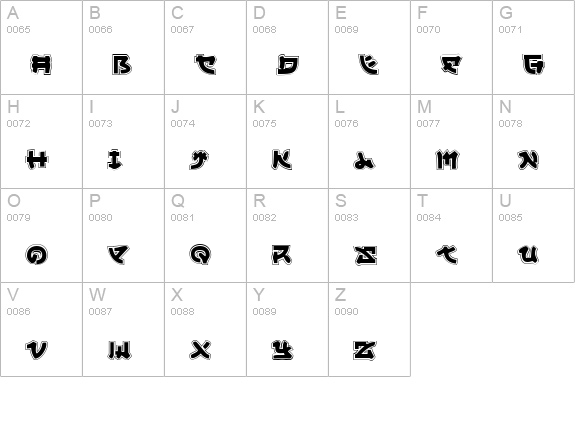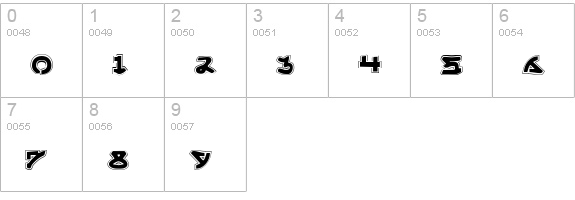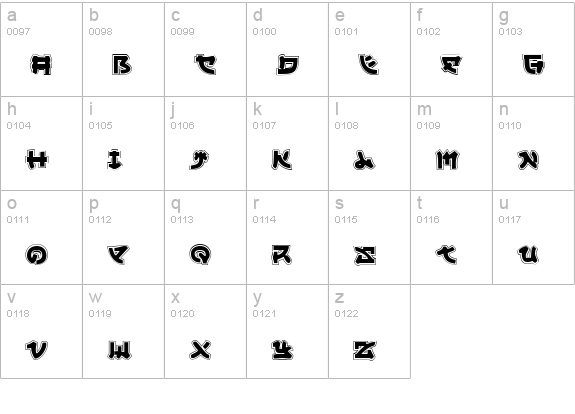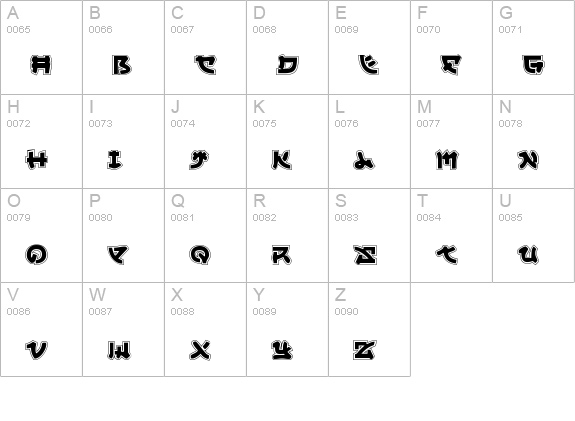
Yama Moto Academy Font Details
The Yama Moto Academy font exudes elegance and sophistication with its sleek lines and modern design. This versatile typeface is perfect for a wide range of projects, from branding to editorial design. Its clean and crisp appearance makes it easy to read while still maintaining a touch of uniqueness. What sets Yama Moto Academy font apart is that it is available for free download at FontsMarket.com. This means that you can easily access this high-quality font without any cost, making it a valuable addition to your font library. Whether you're a designer, writer, or creative professional, Yama Moto Academy font offers a stylish and professional look that will elevate your work to the next level.